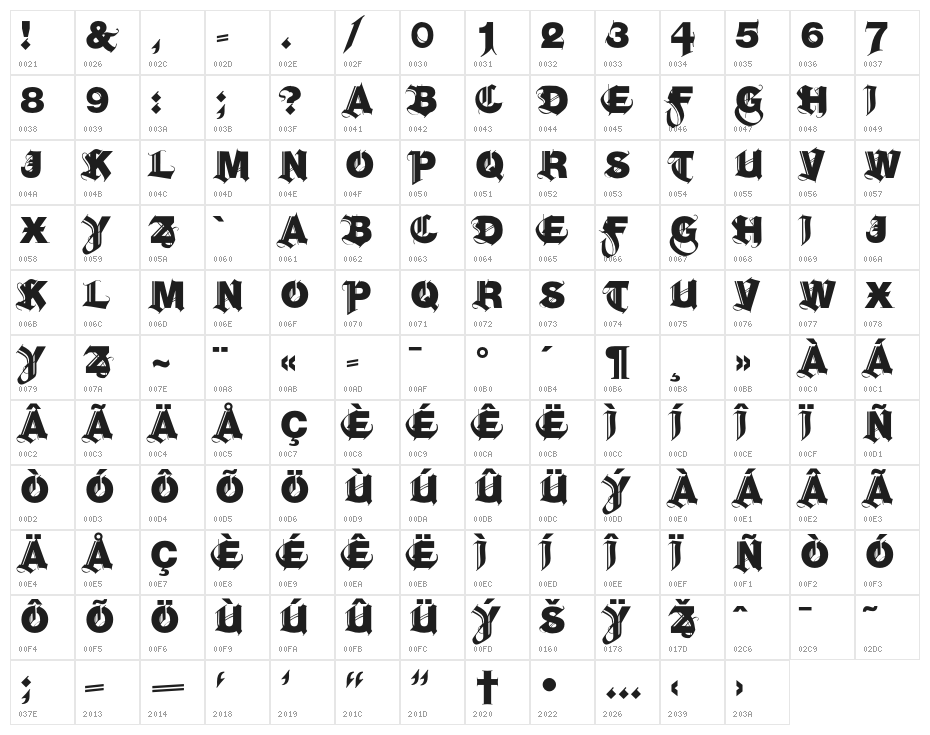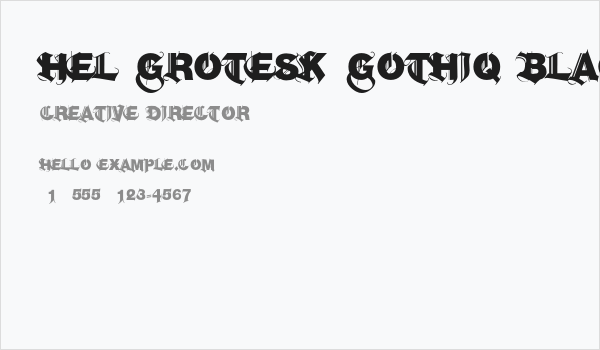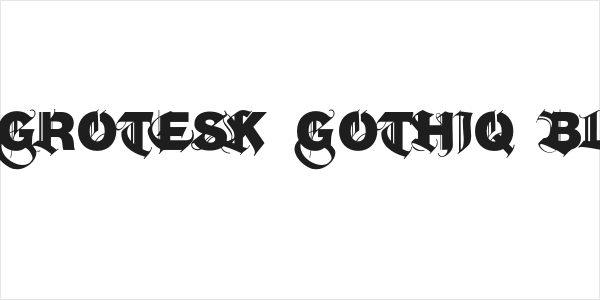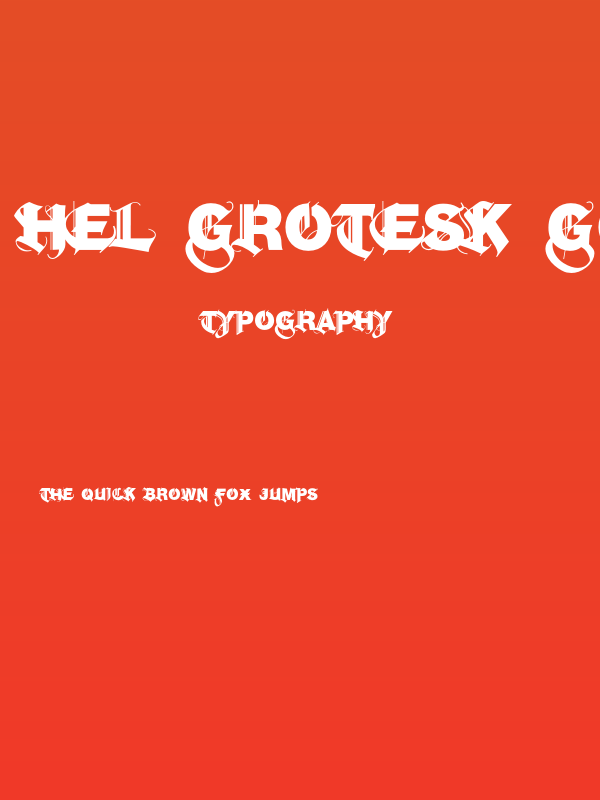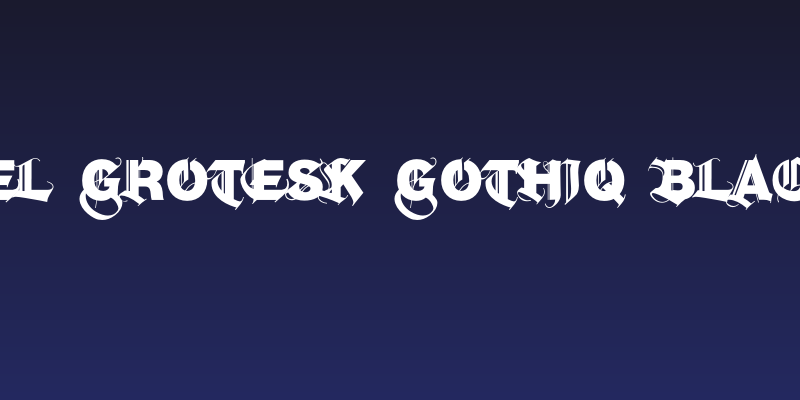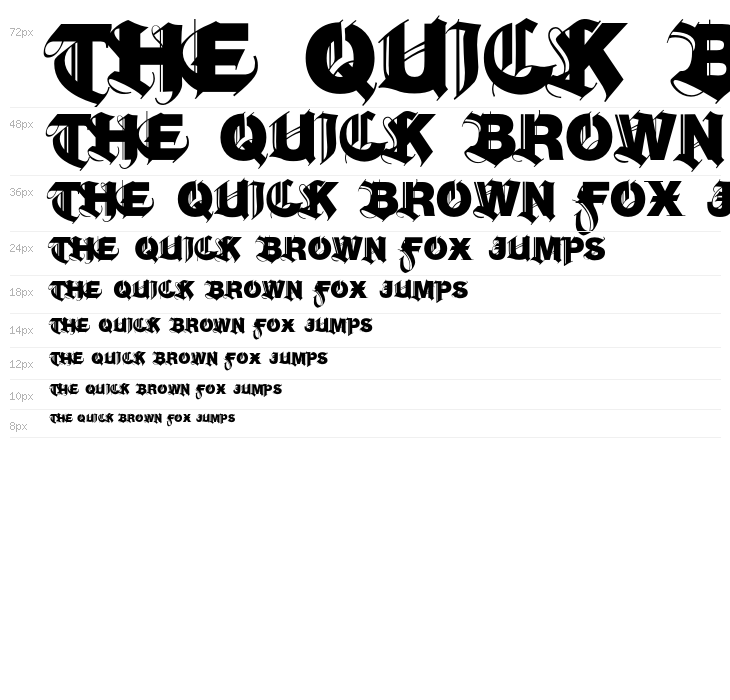
Hel Grotesk Gothiq Black Font
Hel Grotesk Gothiq Black Description
This font is a bold and striking blackletter style with a modern twist. The characters are heavily stylized with sharp, angular lines and dramatic flourishes, giving it a gothic and medieval appearance. The uppercase and lowercase letters maintain a consistent design, with the uppercase being particularly ornate. The numbers and special characters follow the same aesthetic, ensuring a cohesive look across all glyphs. This font is perfect for creating a strong visual impact, with its intricate details and bold presence.
| Overall Style | Gothic, Decorative |
| Proposed Projects | Ideal for branding, posters, album covers, and any project requiring a strong, gothic aesthetic. |